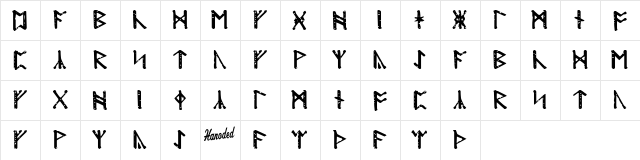
Modraniht Runic Regular
| Foundry | David Kerkhoff |
| Designer | David Kerkhoff |
| Year | 2010 |
Design Context for Modraniht Runic Typeface
Modraniht Runic is a composed and adaptable typeface that performs quietly and consistently across a wide range of design contexts.